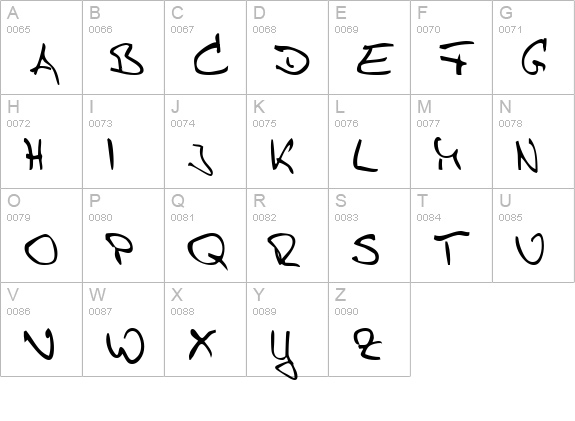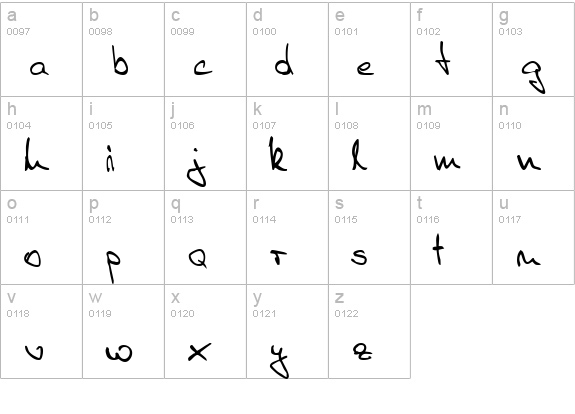
Sister R font is an exquisite creation that combines elegance with a touch of playfulness. Its graceful curves and delicate strokes make it perfect for adding a sophisticated touch to any project. Whether you're designing a wedding invitation, crafting a logo, or creating a beautiful piece of artwork, Sister R font will effortlessly elevate your design to new heights. With its unique character and versatility, Sister R font is sure to captivate the attention of your audience. Its sleek and modern appearance makes it ideal for a wide range of design applications, from branding and advertising to web design and social media graphics. This font is designed to make a lasting impression and leave a memorable mark. One of the best things about Sister R font is that it is freely available to download at FontsMarket.com. Yes, you read that right - this stunning font can be yours without spending a dime. FontsMarket.com is a trusted platform that offers a vast collection of high-quality fonts, and Sister R font is just one of the many gems you can find there. So, whether you're a designer on a budget or simply looking to add some extra flair to your creative projects, Sister R font is the perfect choice. Its elegance, versatility, and the fact that it's free to download make it a must-have for any design enthusiast. Don't miss out on the opportunity to enhance your designs with this extraordinary font - head over to FontsMarket.com today and unlock the endless possibilities that Sister R font has to offer.